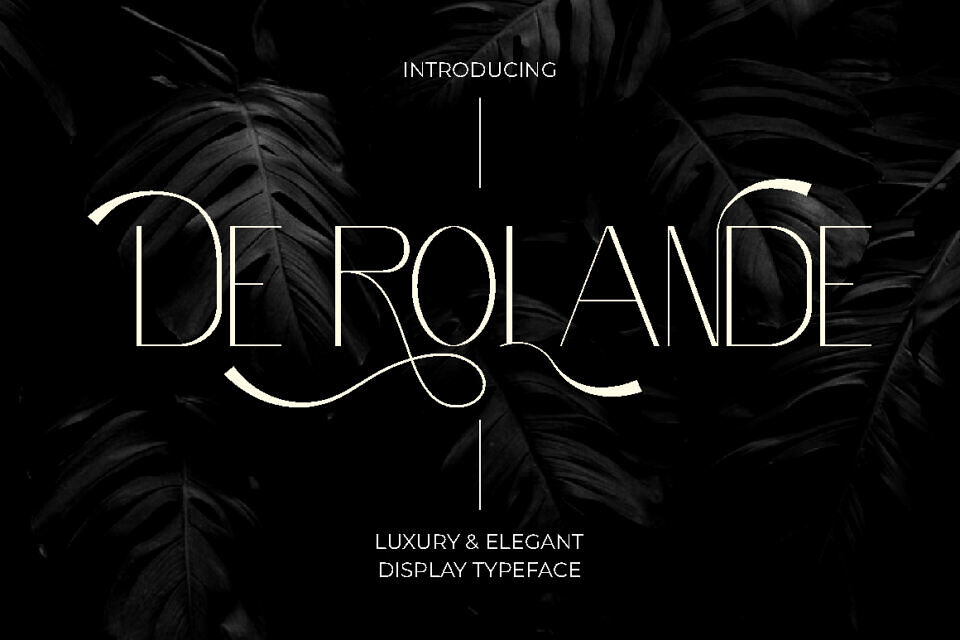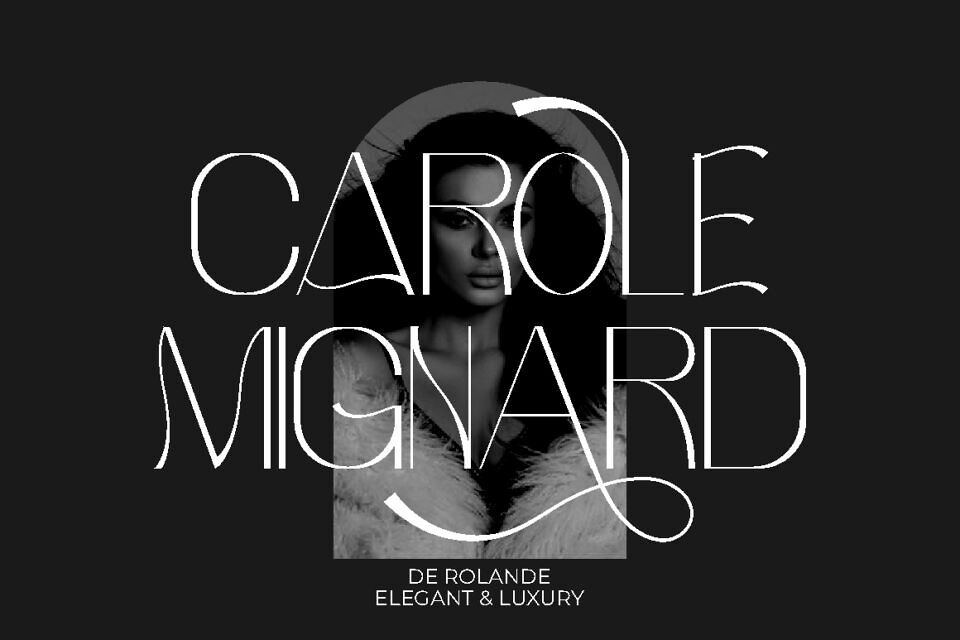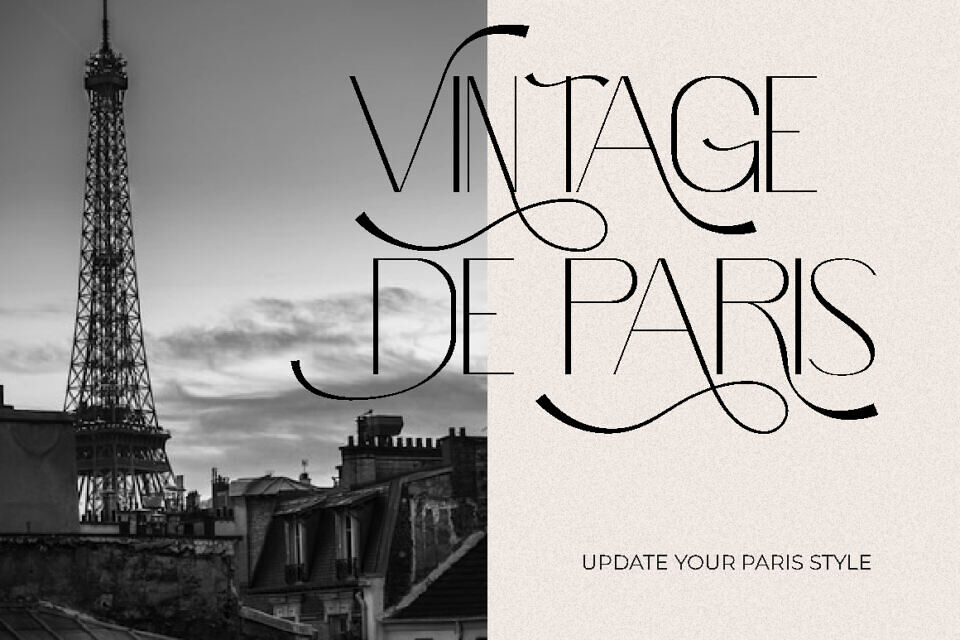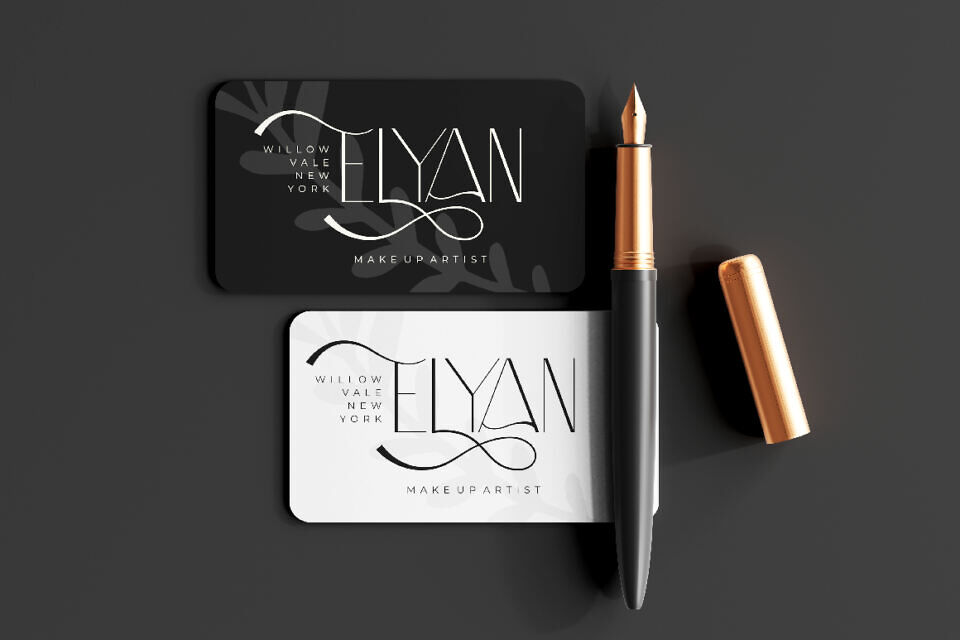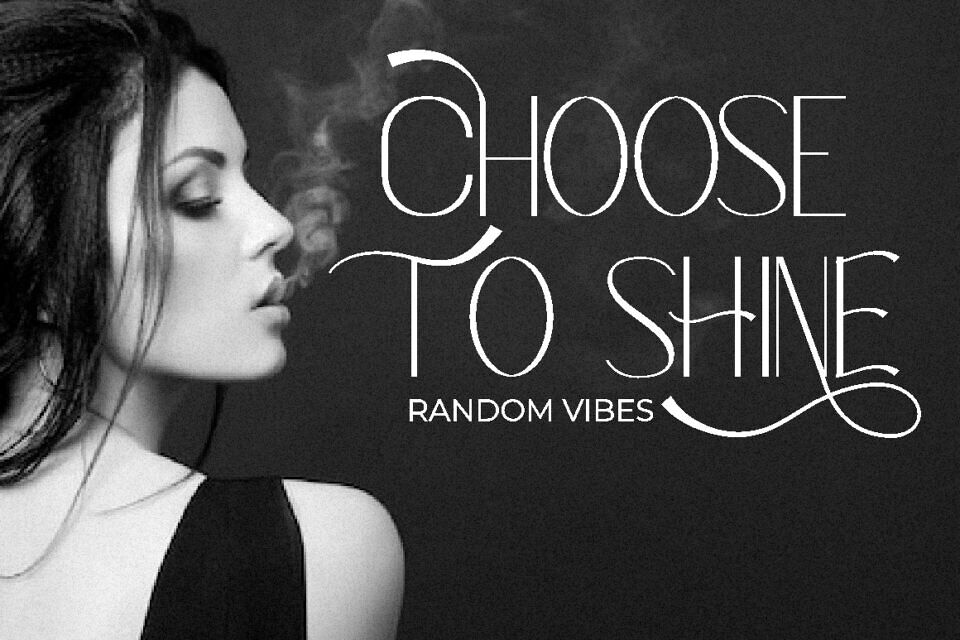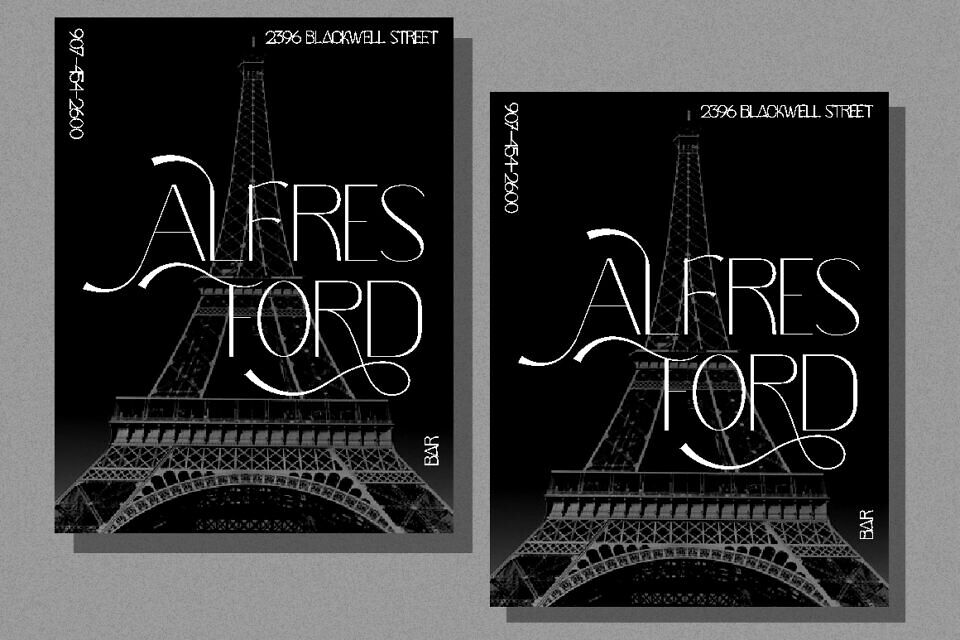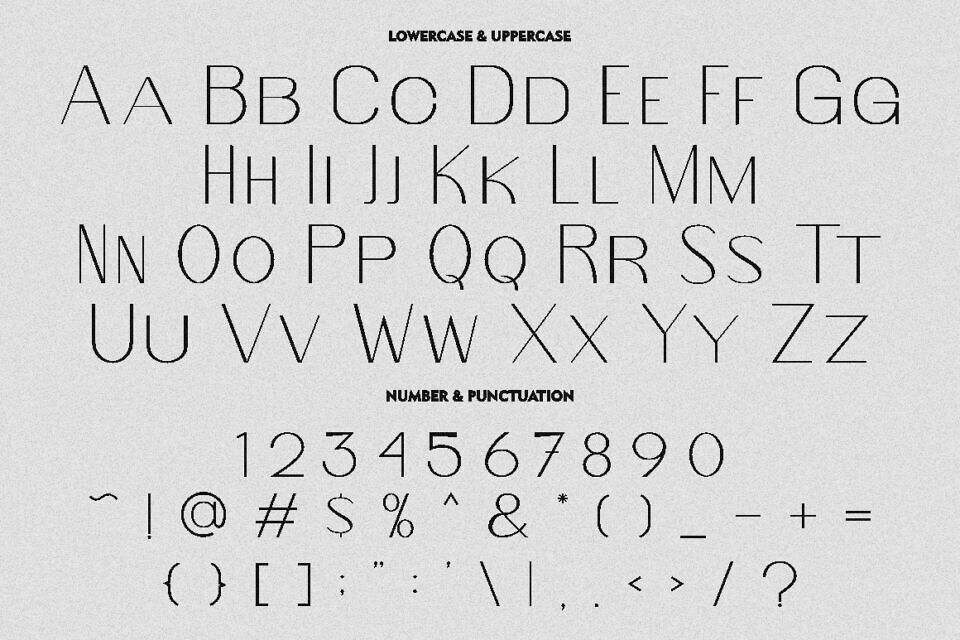
De Rolande Font
De Rolande is a sophisticated display typeface crafted for high-end, elegant designs. Ideal for luxury brands, fashion, and beauty, it adds timeless charm and refinement to any project.
The font includes uppercase and lowercase letters, OpenType alternates and ligatures, symbols, numbers, punctuation, and full multilingual support. Its classic design, exceptional legibility, and stylish features make it a perfect choice for upscale branding that leaves a lasting impression.